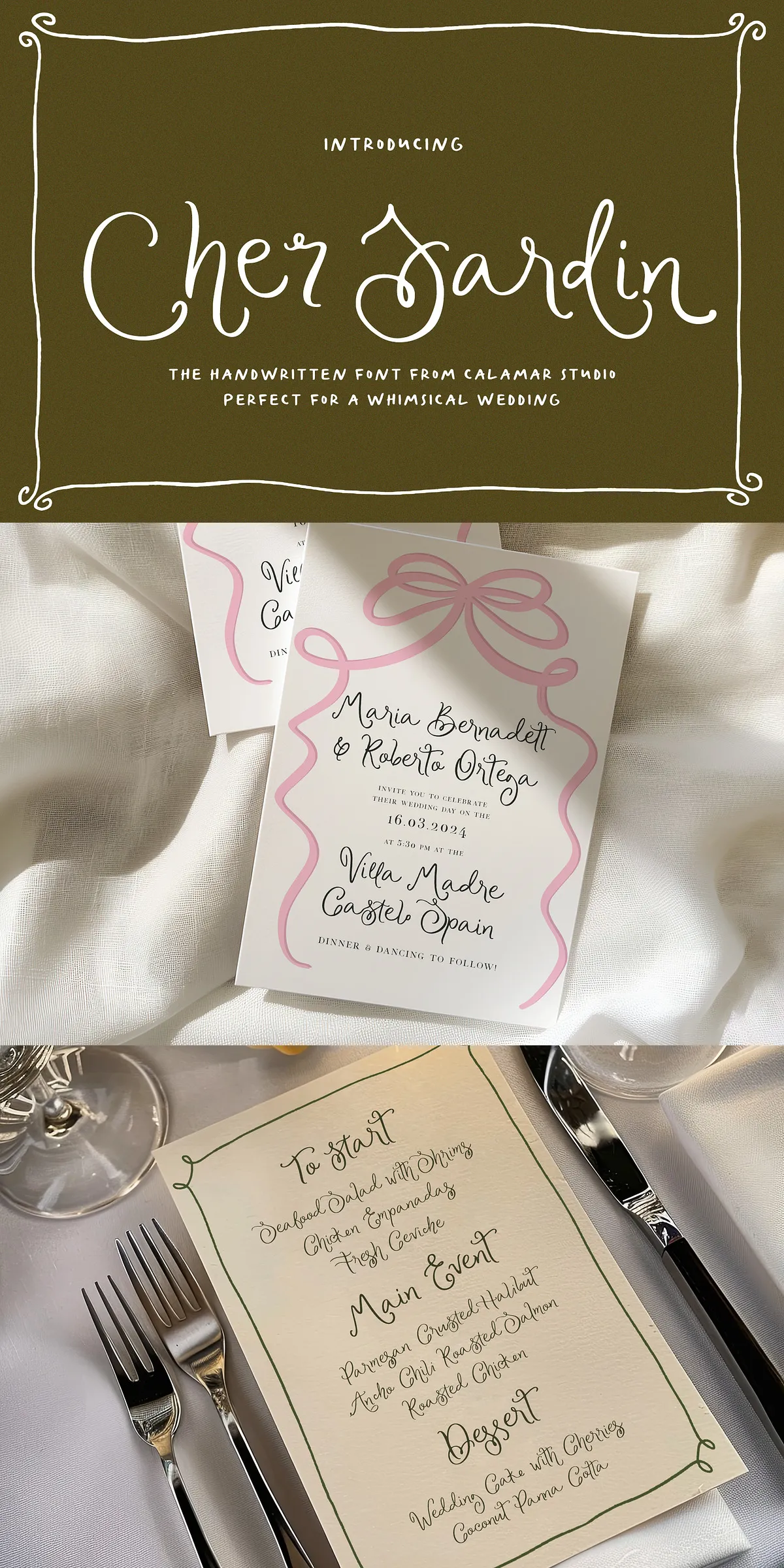
Step into the future of wedding design with Cher Jardin Font — a bold, charming, and effortlessly stylish script designed to capture the spirit of the 2024–2025 wedding season. This isn’t just a font; it’s a creative revolution for modern brides, designers, and branding specialists who demand personality, charm, and visual impact. From delicate handwritten invitations to eye-catching Instagram posts, Cher Jardin brings a unique blend of playfulness and sophistication that defines today’s most sought-after aesthetic.
Why Cher Jardin is the Ultimate Choice for 2024-2025
With its flowing lines, subtle flourishes, and handcrafted touch, Cher Jardin turns every design into a work of art. Its whimsical yet refined character makes it ideal for couples who want to express their individuality, while still maintaining a timeless elegance. Whether you’re crafting a minimalist wedding suite or a vibrant boho-themed celebration, this font delivers that perfect balance of charming spontaneity and polished design. Use it across digital and print media to create cohesive, stylish, and unforgettable brand experiences.
Rich Feature Set for Unmatched Creative Freedom
Cher Jardin packs a powerful punch with its comprehensive character library. It includes a full set of uppercase and lowercase letters, numerals, standard punctuation, and advanced typographic elements like contextual alternates, ligatures, and stylistic sets. These features allow you to create seamless, dynamic text that mimics the natural flow of hand-drawn script. Every letter feels intentional, every flourish purposeful. The result? Designs that breathe life and movement into your projects — no two looks are ever the same.
Diverse Applications for Modern Designers
Unlock endless possibilities with Cher Jardin. Use it to design breathtaking wedding invitations that tell a story before the first word is read. Elevate your menu cards with character-driven layouts that delight guests. Transform your social media content into shareable art with effortlessly stylish quotes and announcements. Create modern wall art, branding kits, or promotional flyers that stand out in a crowded digital space. Its versatility ensures it fits beautifully into both personal and professional workflows.